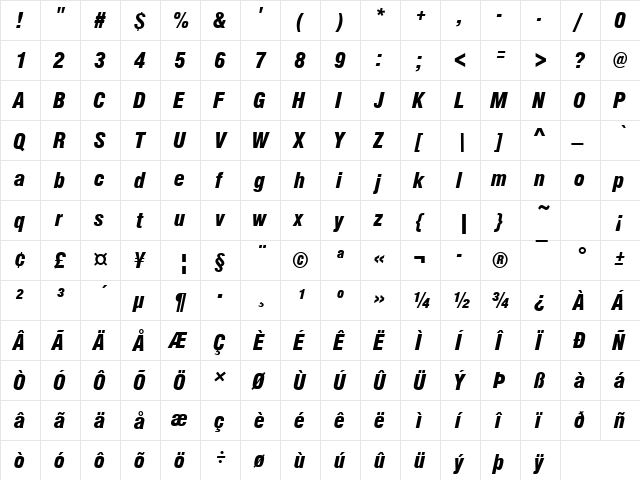
Nimbus Sans Becker DBlaCon Italic
Design Context for Nimbus Sans Becker DBlaCon Typeface
Nimbus Sans Becker DBlaCon takes a measured approach to typography — its balanced proportions and neutral character make it a reliable workhorse for both digital and print work. Its italic angle brings a sense of urgency and motion to the letterforms.
Pro Tip: Use Nimbus Sans Becker DBlaCon for emphasis, pull quotes, and subheadings where its slanted energy can add rhythm to the layout.